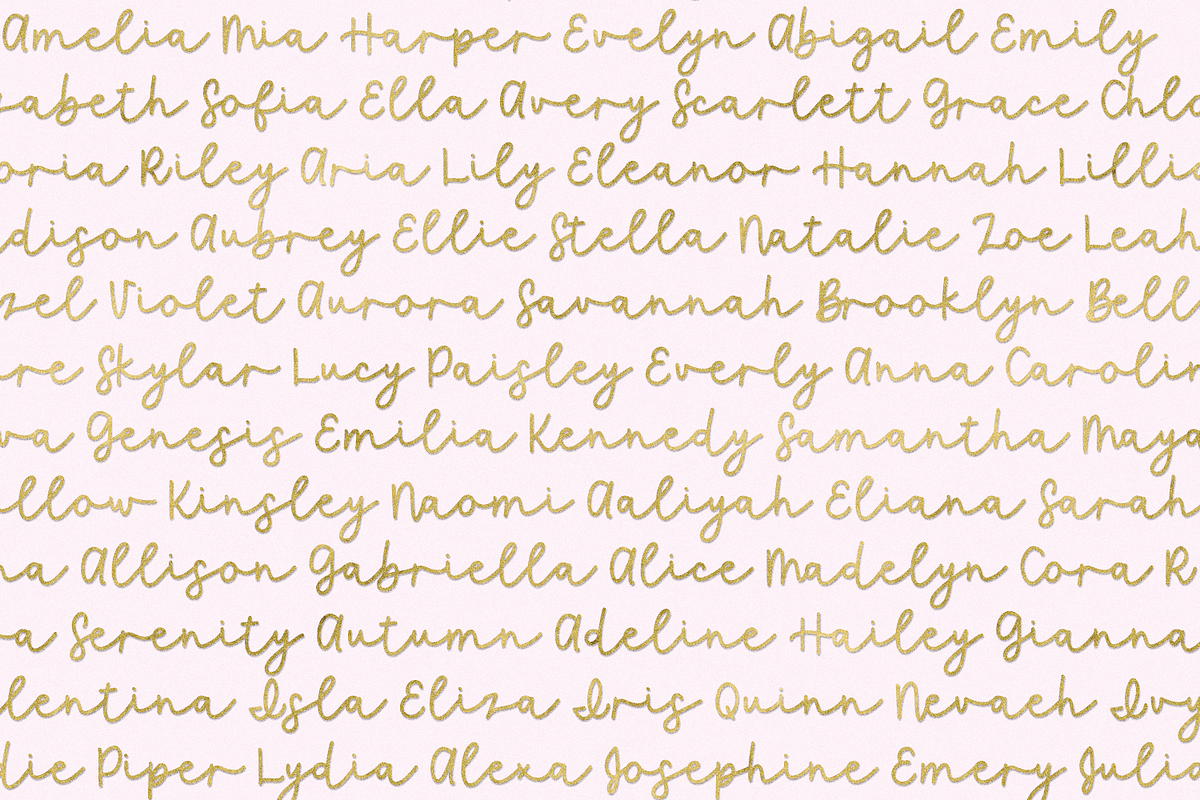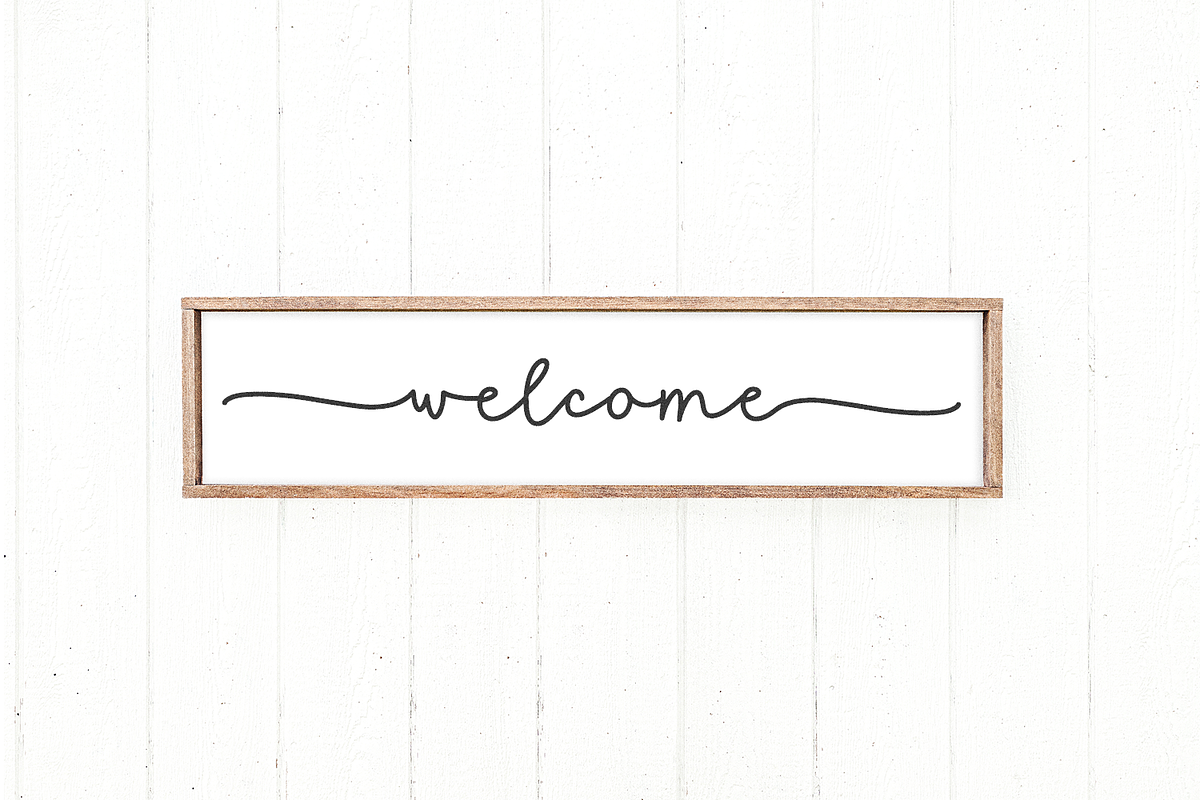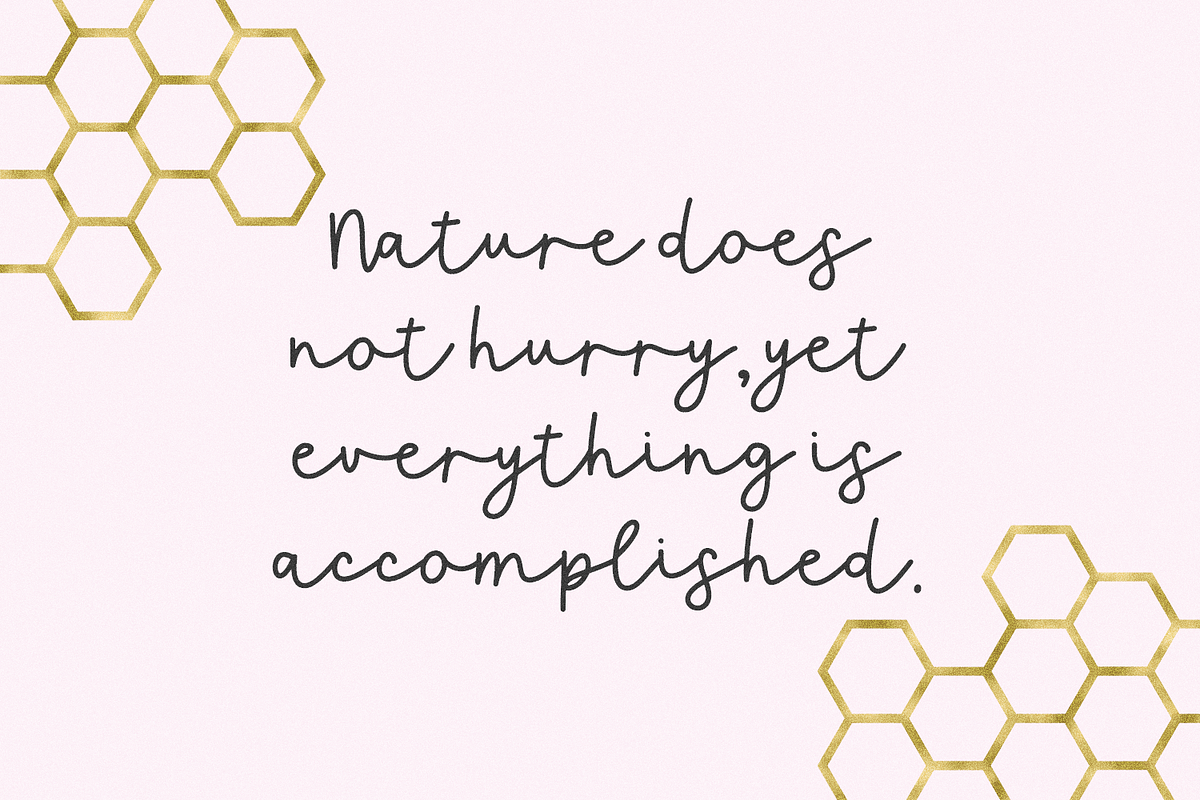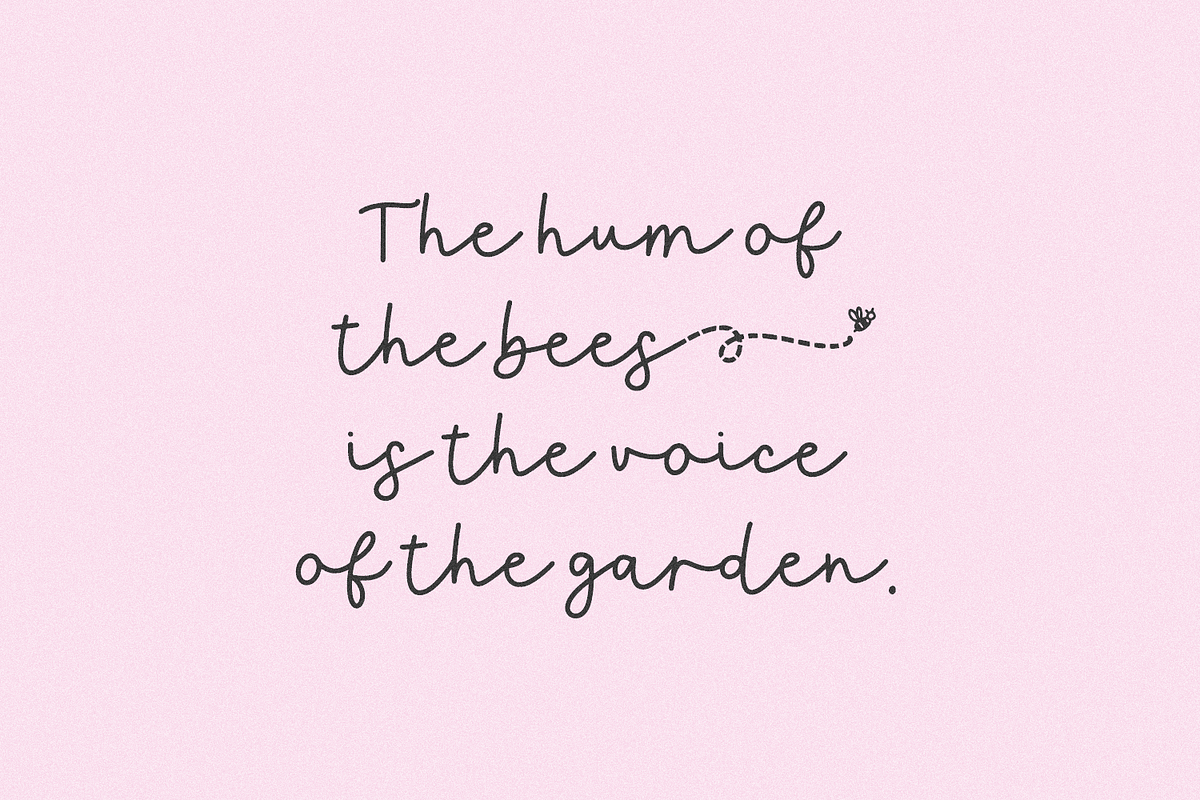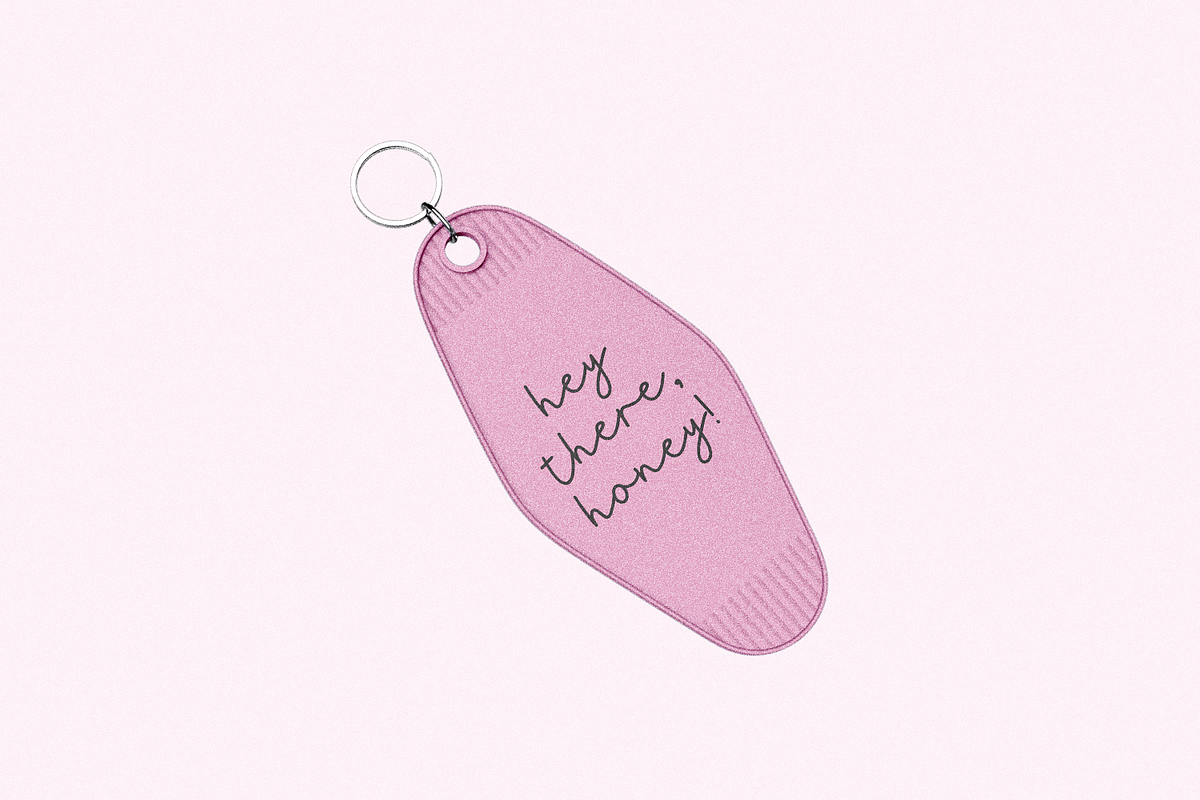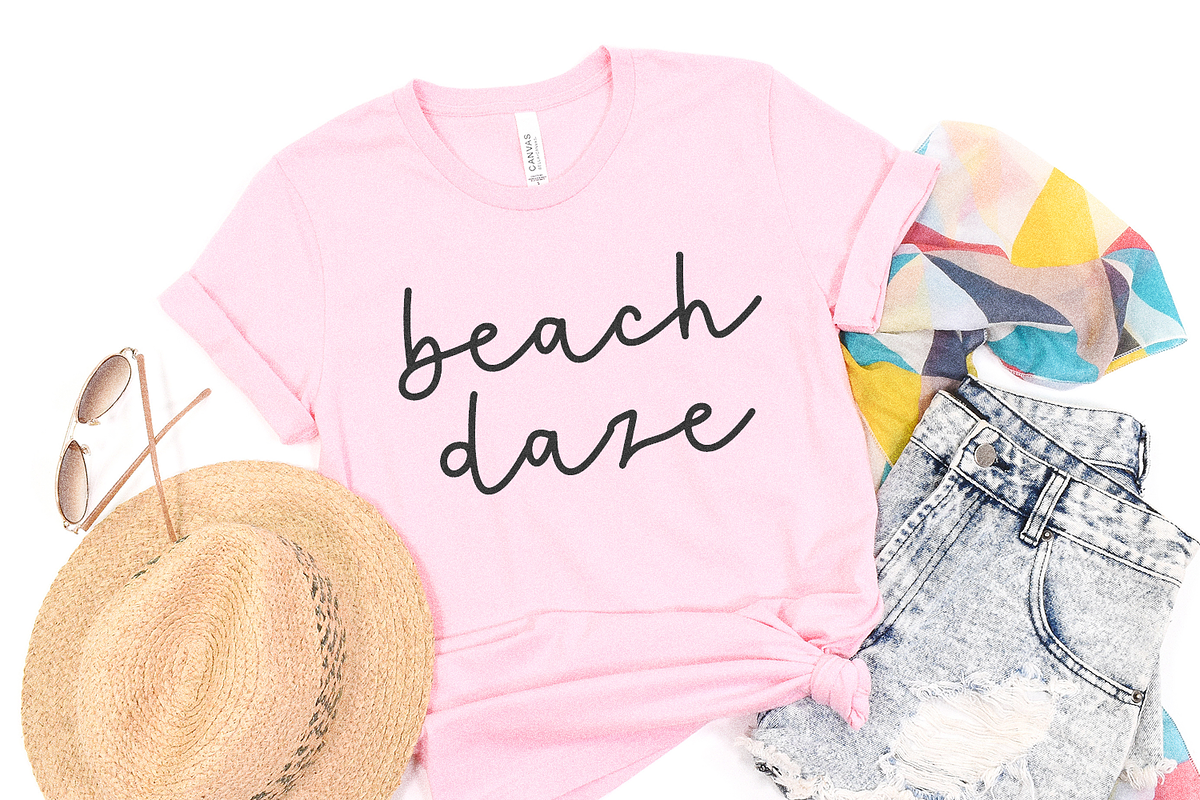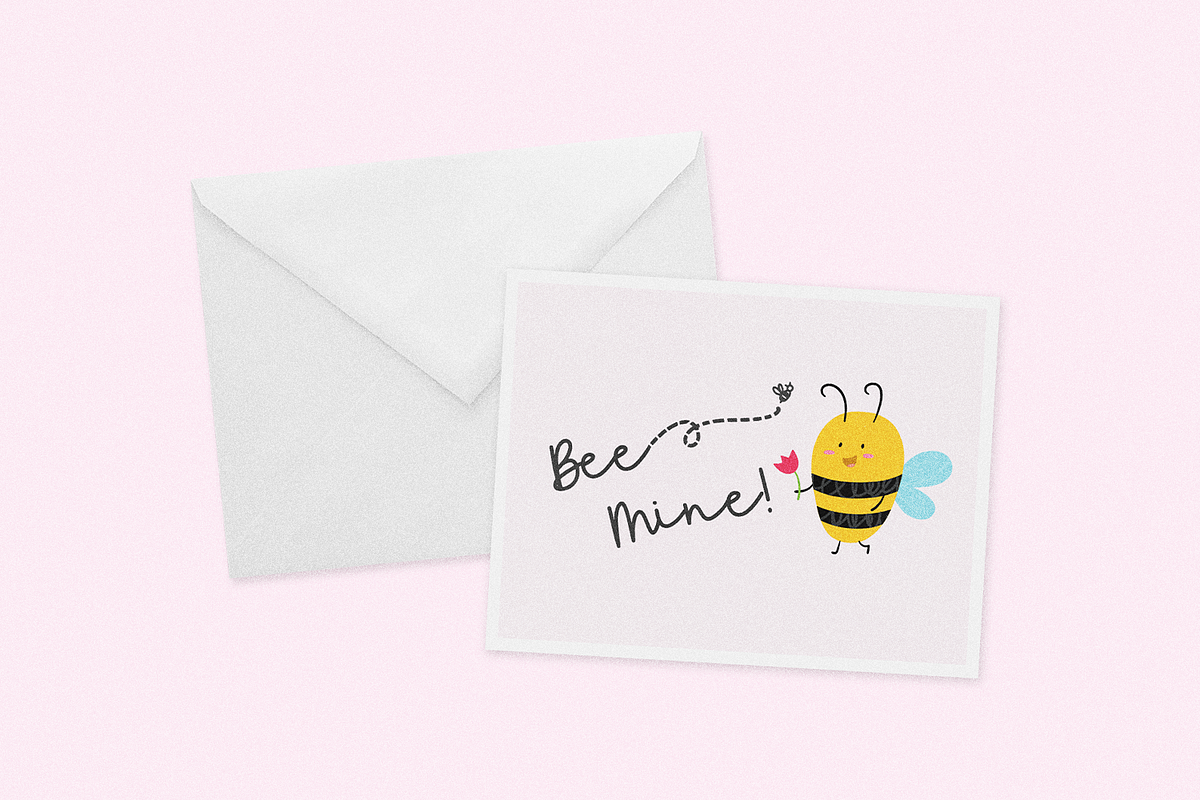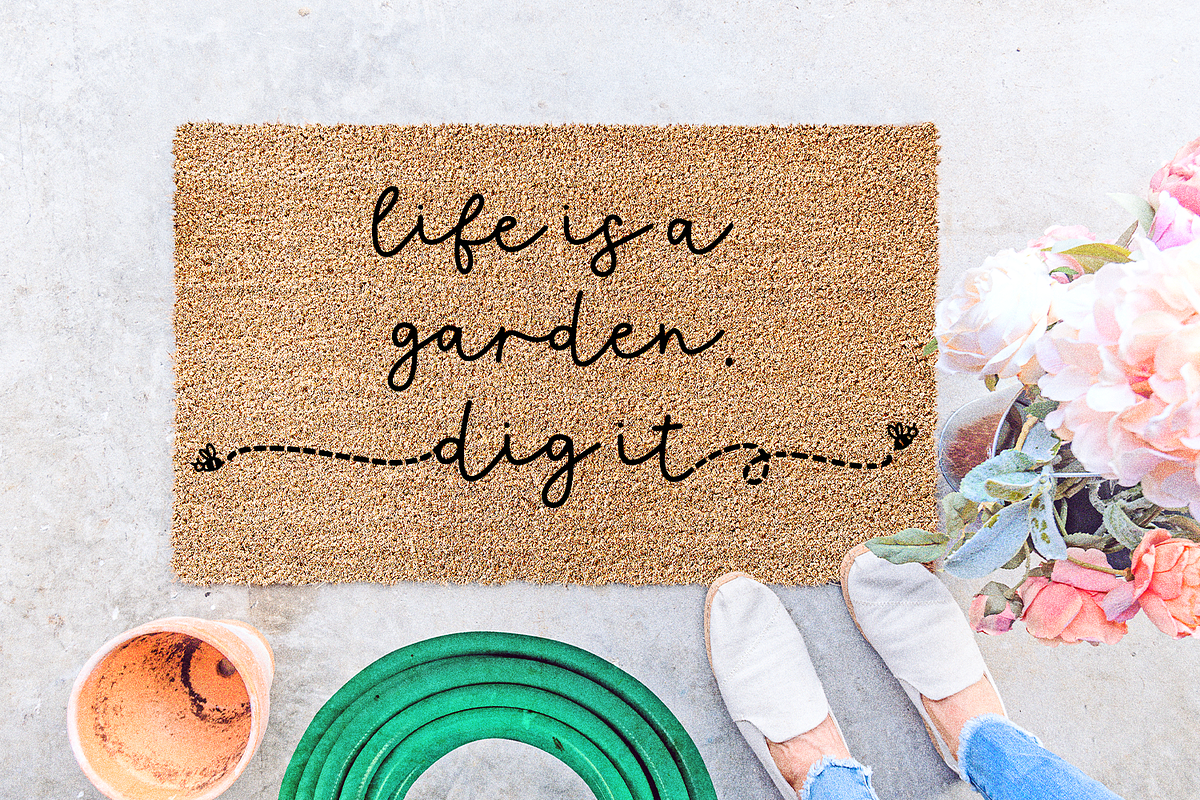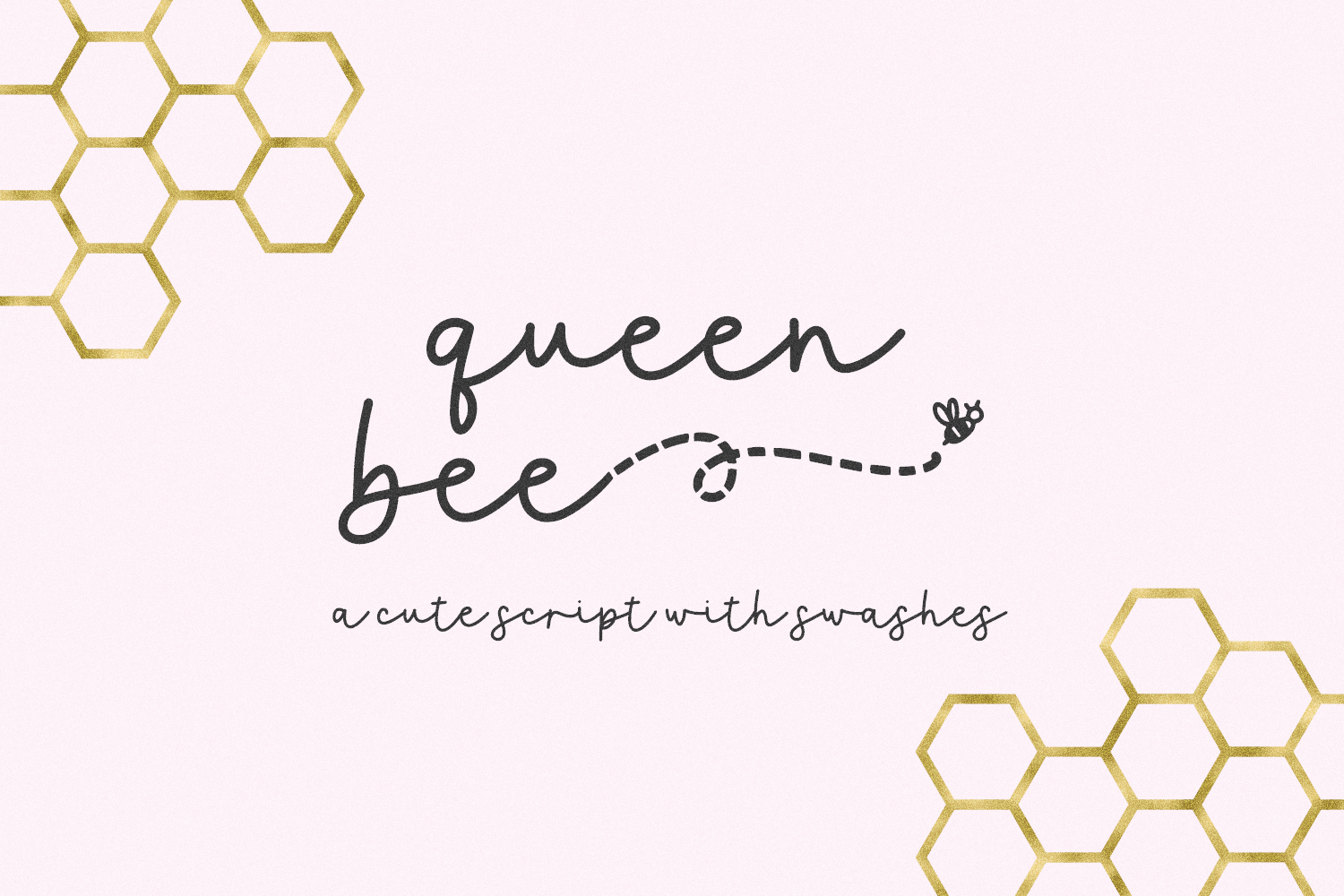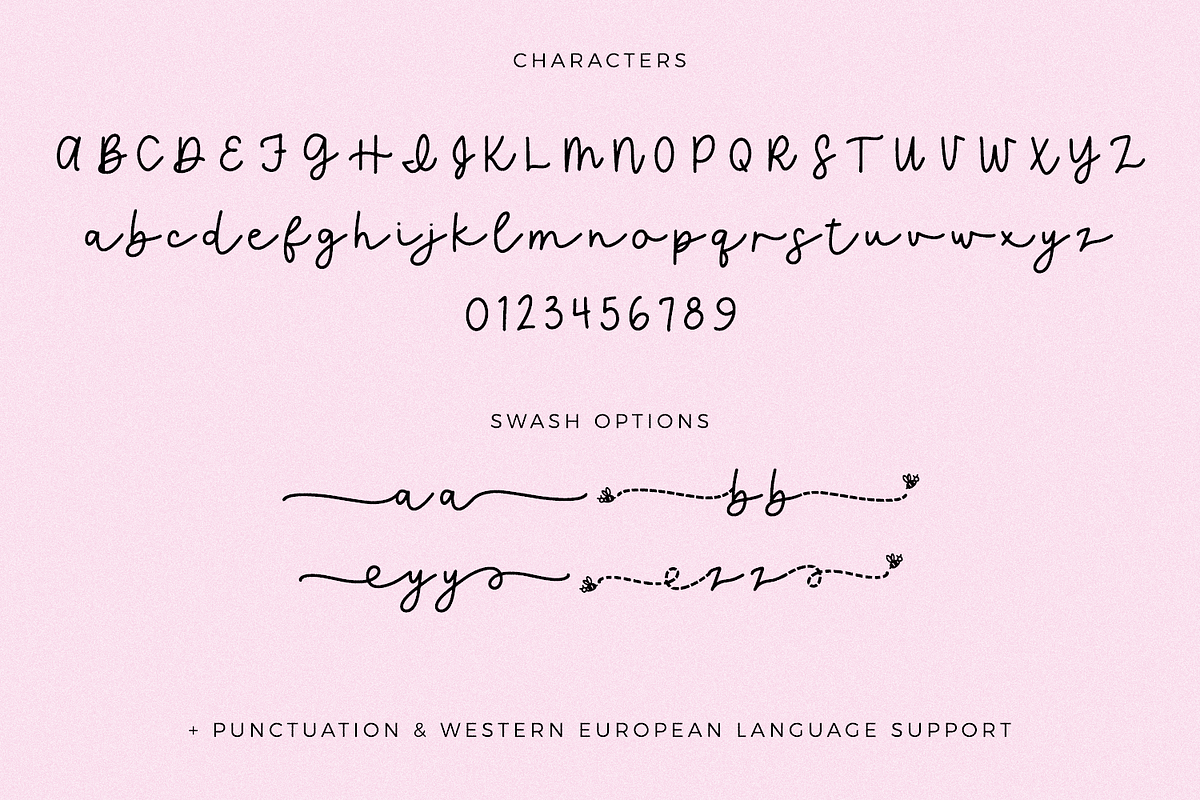
Queen Bee Script Font
Queen Bee Script is a modern monoline calligraphy font. Queen Bee features super cute swash sets, including solid, flow swashes and dashed swashes that include an adorable bee. This font is perfect for logos & branding, greeting cards, painted banners, digital planners, note-taking apps, Canva, Cricut projects, Silhouette projects, designing SVG files, laser cutting projects, & more.
Queen Bee Script includes:
- full upper + lowercase characters
- numbers + punctuation
- 4 sets of left & right swashes